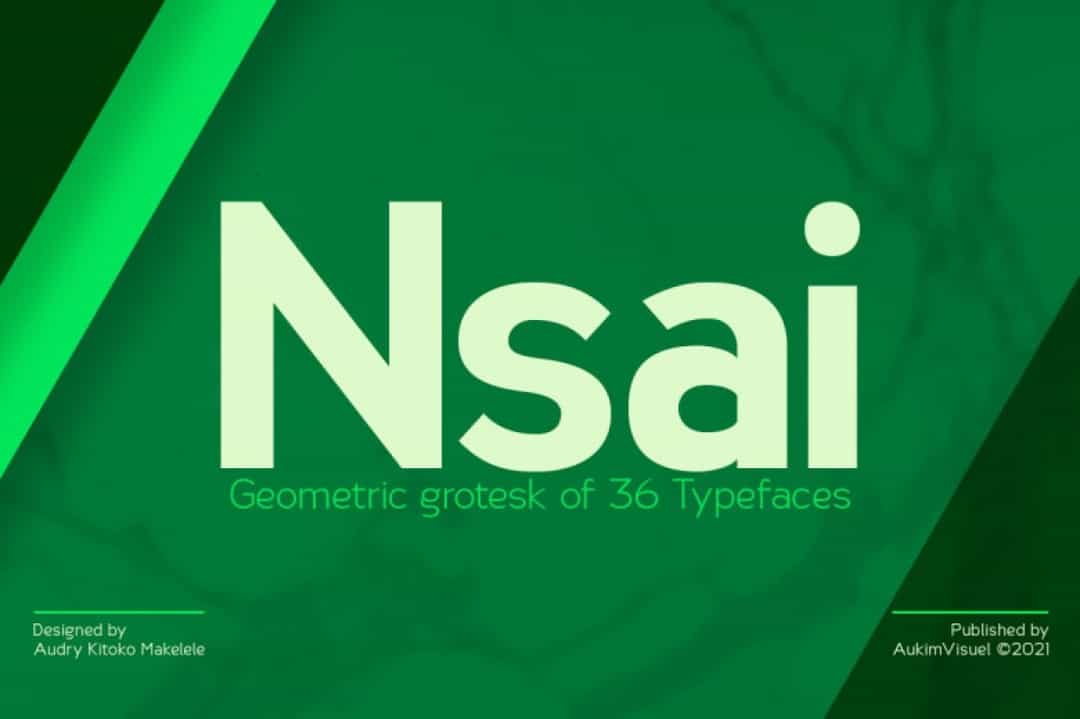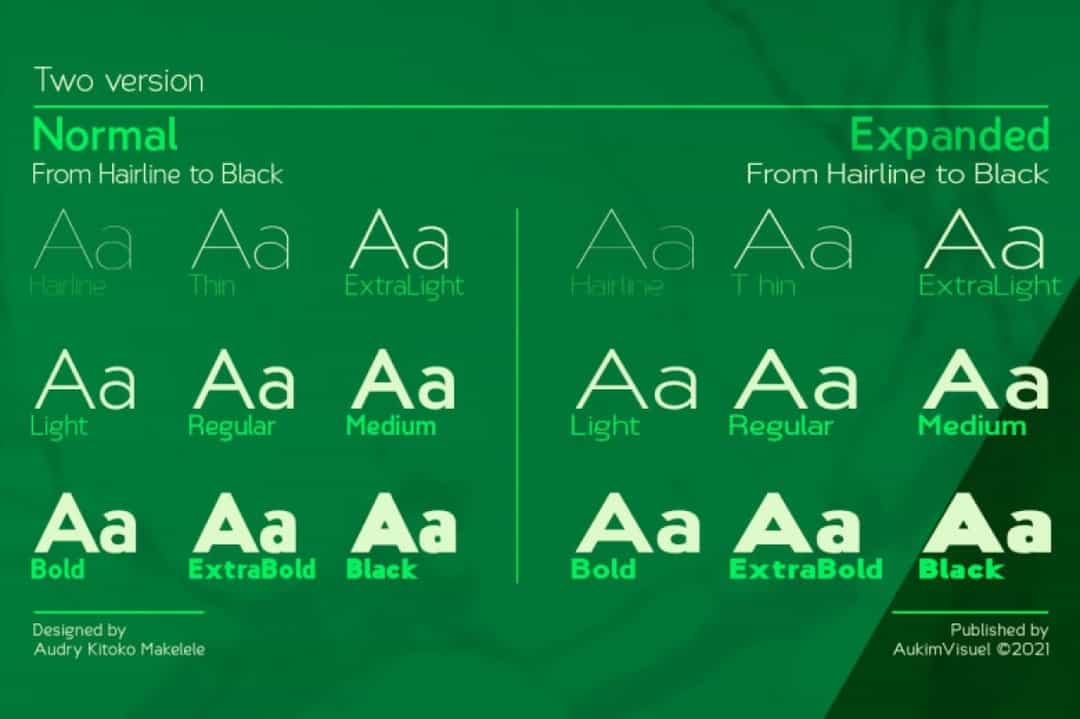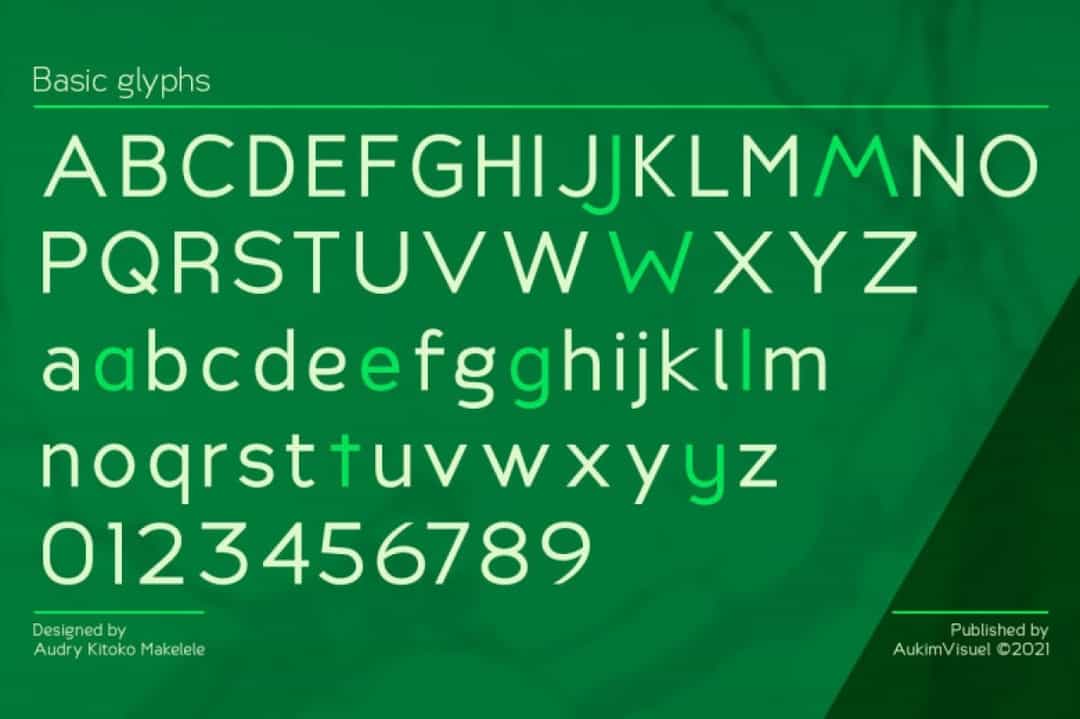
Nsai is an eye-catching contemporary sans serif font family with geometric flourishes designed at the end of 2021 by Congolese graphic designer and typewriter Audry Kitoko. There are two versions (normal as well as extended), totalling 36 fonts in all. Each font offers 9 weights with its authentic italics; plus over 600 glyphs per font provide support for languages including Latin to Cyrillic. Providing robust support of languages.